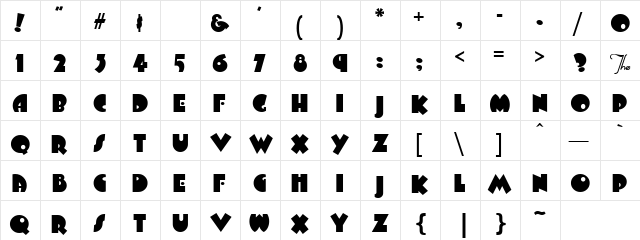
bomb Regular
Design Context for bomb Typeface
bomb is a composed and adaptable typeface that performs quietly and consistently across a wide range of design contexts.